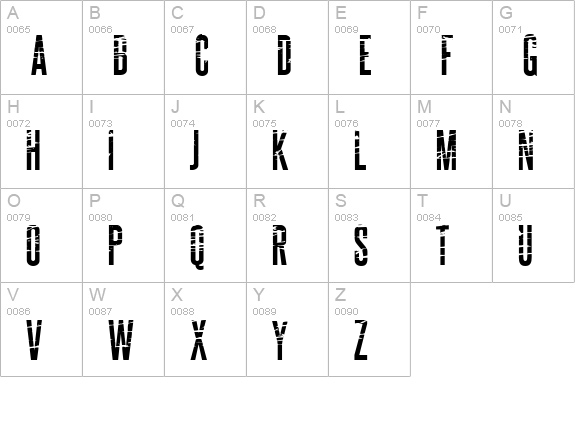
ALCATRAZ font is a bold and captivating typeface that effortlessly combines vintage aesthetics with a modern twist. Its strong and distinctive letterforms exude a sense of power and confidence, making it the perfect choice for any project that requires a touch of boldness. Inspired by the infamous Alcatraz Island, this font captures the essence of its history and mystery. Each letter is carefully crafted to reflect the ruggedness and resilience associated with the island's notorious past, while maintaining a contemporary appeal that is sure to captivate the audience. With its versatile nature, ALCATRAZ font is suitable for a wide range of design purposes. Whether it's branding, logos, headlines, posters, or even tattoos, this font can effortlessly elevate any design to new heights. Its sharp edges and clean lines command attention, leaving a lasting impression on anyone who encounters it. One of the greatest advantages of ALCATRAZ font is that it is freely available to download at FontsMarket.com. This means that you can easily access and utilize this remarkable typeface without any cost. Whether you are a professional designer or a hobbyist, the availability of this font for free enables you to bring your creative visions to life without breaking the bank. So why wait? Unleash the power of ALCATRAZ font and add a touch of boldness and intrigue to your designs. Download it now for free at FontsMarket.com and embark on a journey to create stunning visuals that leave a lasting impact.